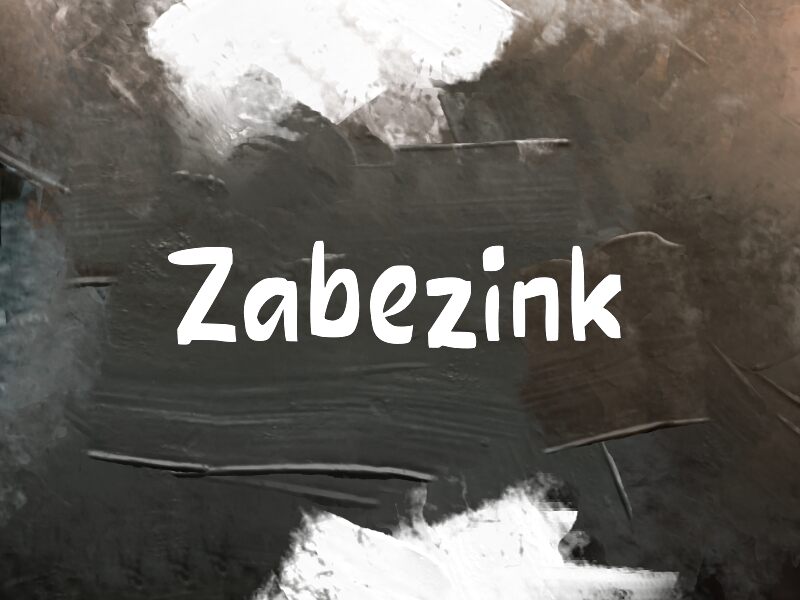
Zabezink font by wepfont.com is a free comic display typeface with the loose, inky energy of a quick marker sketch. The letters feel hand-drawn and a little wobbly in a charming way, with chunky strokes and rounded corners that keep everything friendly and approachable. It reads clearly even at smaller sizes, but really comes alive when you blow it up for bold, shouty moments.
Using Zabezink, you can bring bounce and personality to kids’ book covers, comic panels, playful logos, YouTube thumbnails, game titles, stickers, and party invitations. This free font shines when you want something informal and expressive without looking messy or chaotic. Try pairing Zabezink with a clean geometric sans for body text so its lively forms stay in the spotlight.